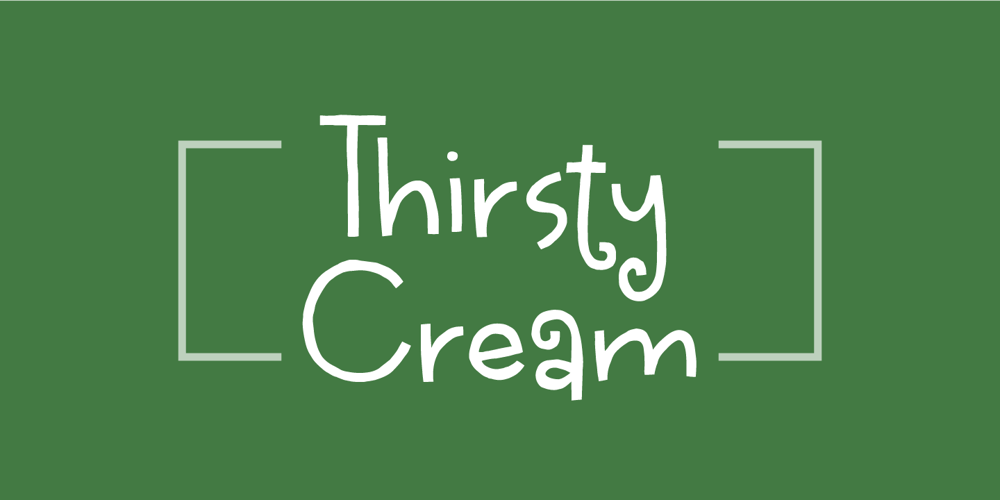
Thirsty Cream Font Family was designed by Jakob Fischer and published by PizzaDude.dk. Thirsty Cream contains 2 styles and family package options. Thirsty Cream is my handmade and slightly curly font. I had birthday greeting cards, invitations and products for kids. But I guess that it is useful for a good handful of other things.While the lowercase has it’s curly moments, the UPPERCASE is quite steady and super legible